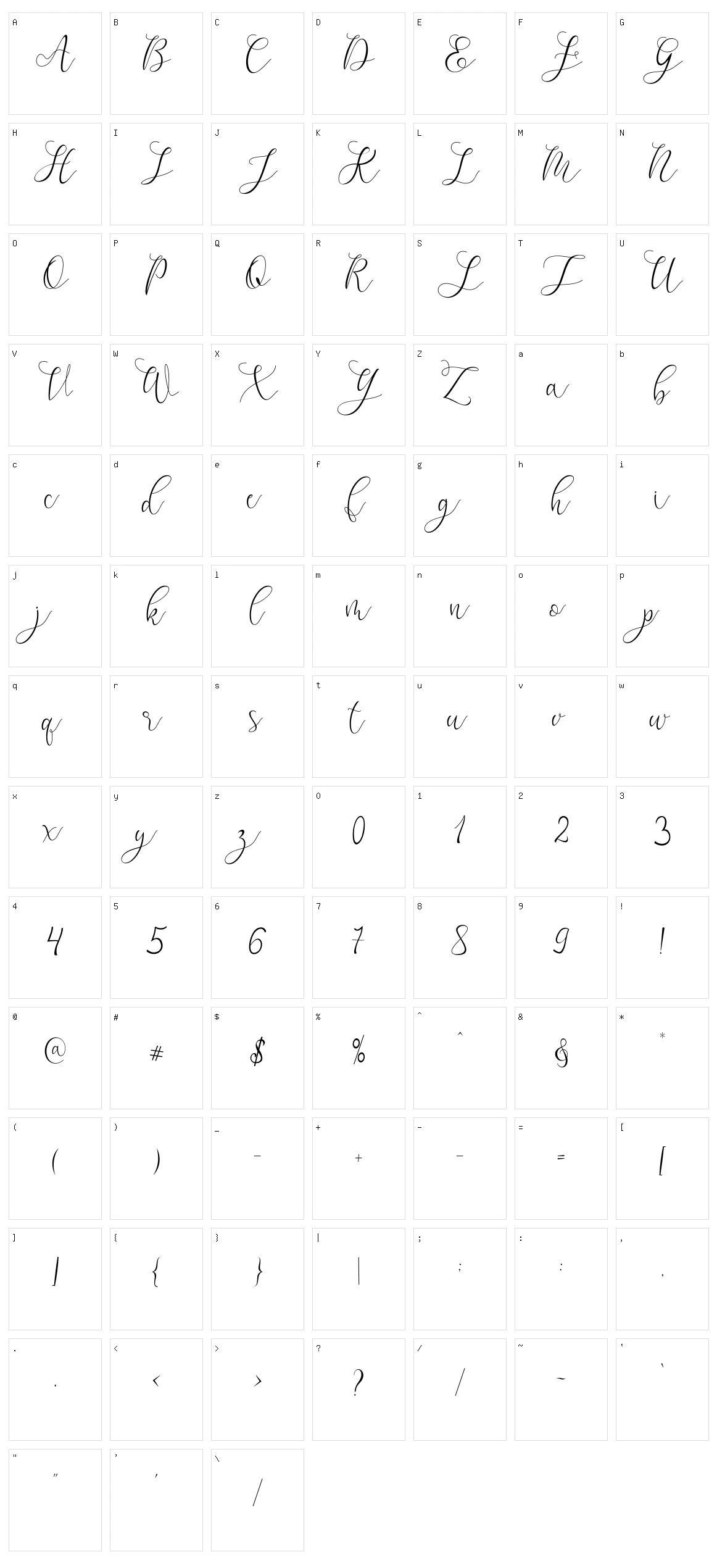
The free font Mikayla is carefully designed by Chairul Art, showcasing a thoughtful balance of creativity and usability and falls under the Script font style. When you download the ZIP file, it contains only 91.76 KB of font files, making it lightweight and quick to download. Please review the license details below to understand permitted usage and distribution rights. If license information is not available, we recommend using this font for personal projects only or contacting the author directly for commercial usage permissions.